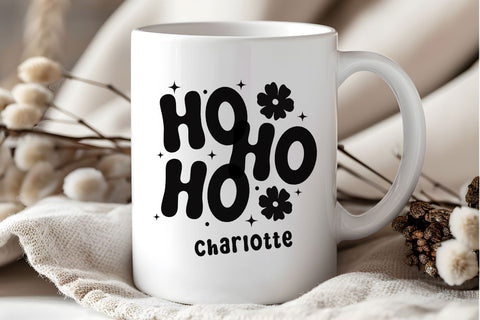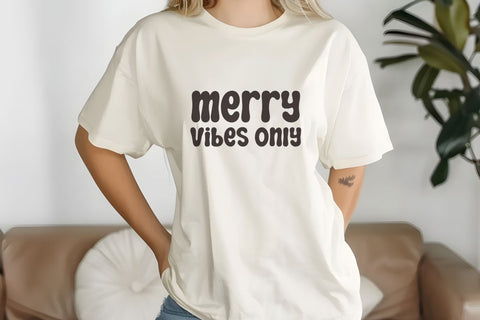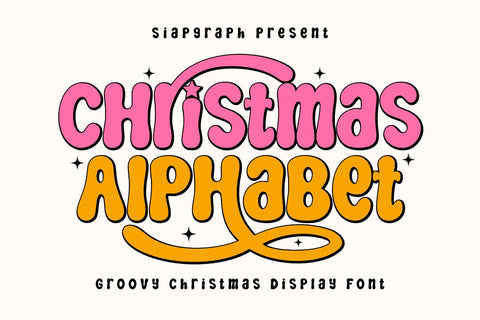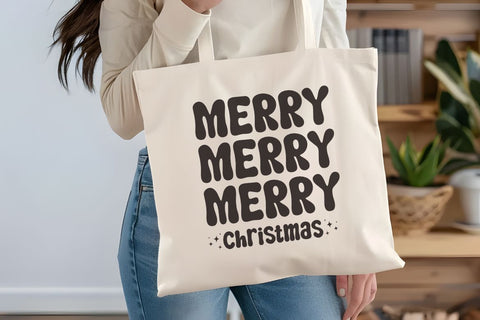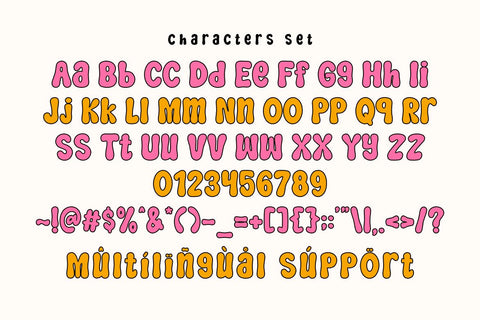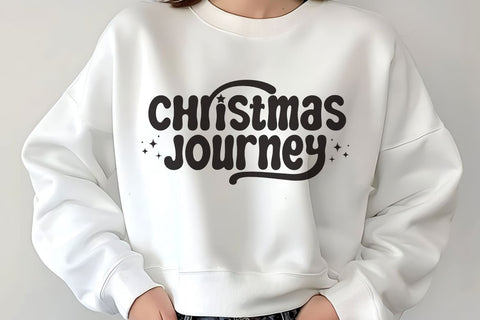
Christmas Alphabet - Groovy Christmas Font
Christmas Alphabet is a bubbly, groovy, and cheerful display font inspired by the vibrant, candy-colored aesthetic and playful nostalgia of retro 70s and 80s holiday illustrations. Its smooth, rounded letters and bold presence make it stand out instantly.
This font is a fantastic choice for creators targeting the Christmas, Holiday, and Winter markets in craft, POD (Print On Demand), and DIY. The smooth, thick lines ensure it works beautifully for cutting, sublimation, and printing projects.
Perfect for: crafting SVG designs, retro Christmas t-shirts, holiday party invitations, personalized ornaments, festive mug designs, Christmas pajamas, cheerful kids' apparel, social media banners, greeting cards, and fun, playful seasonal branding.
Great for holiday themes such as Christmas, New Year's, Winter Break, and general Seasonal Celebrations, adding a unique, funky, and joyfully nostalgic touch to any design!